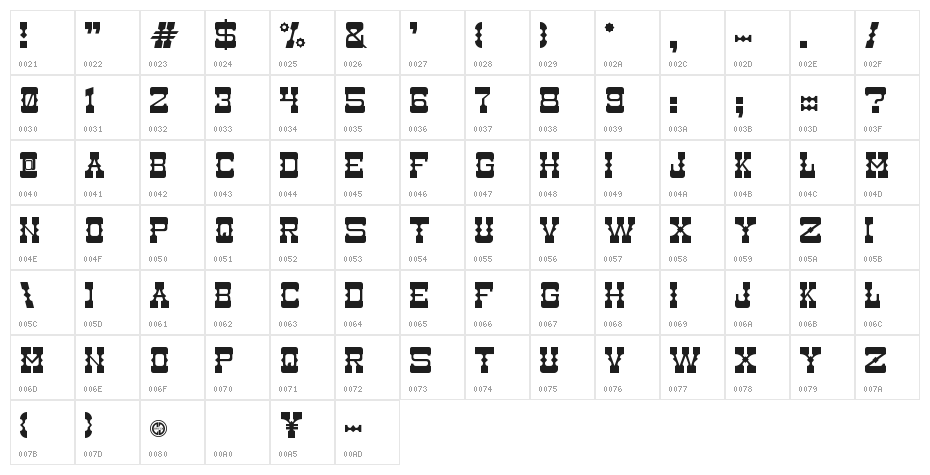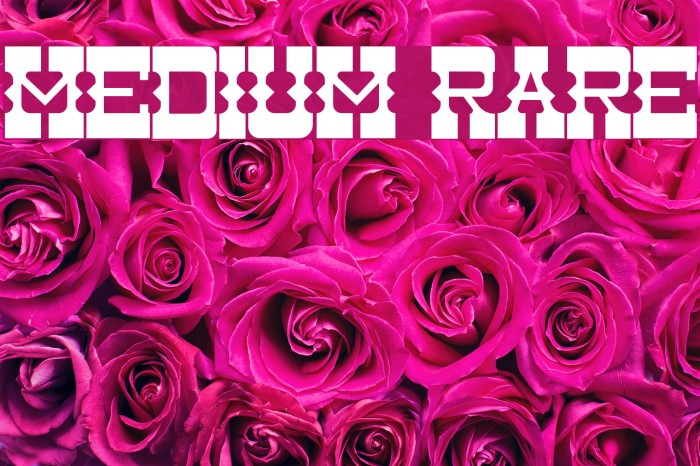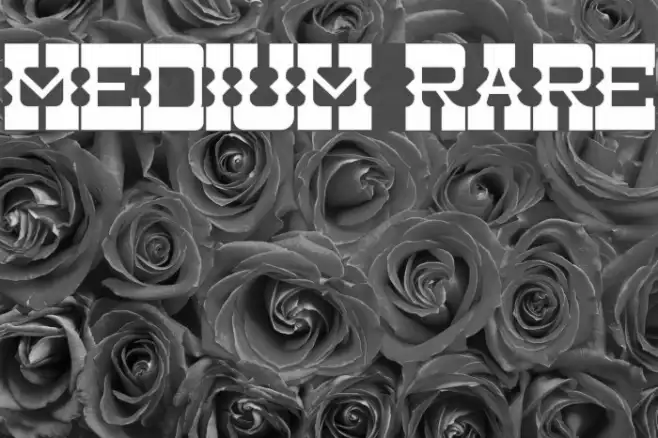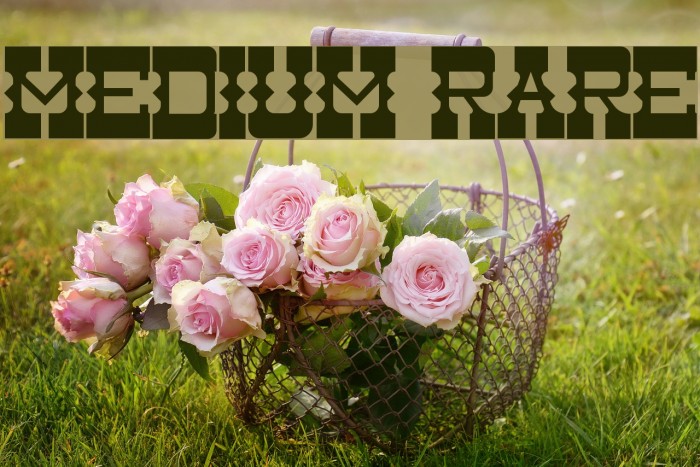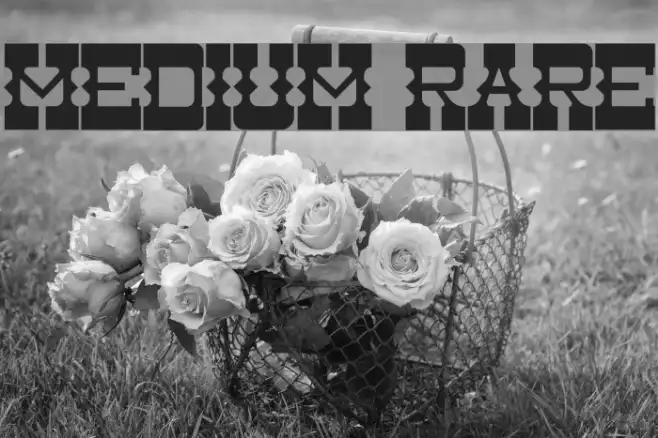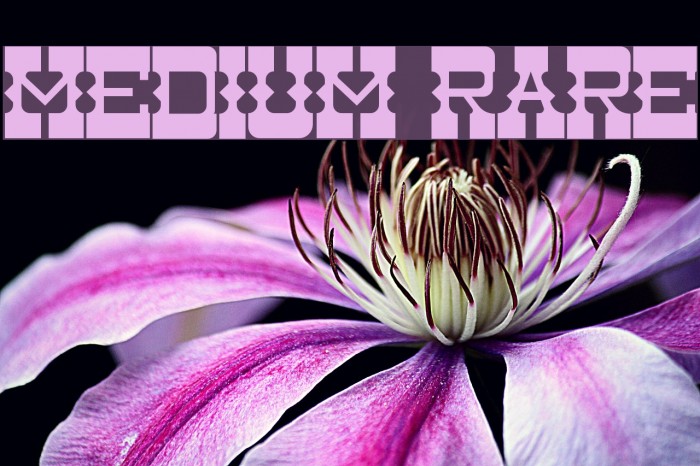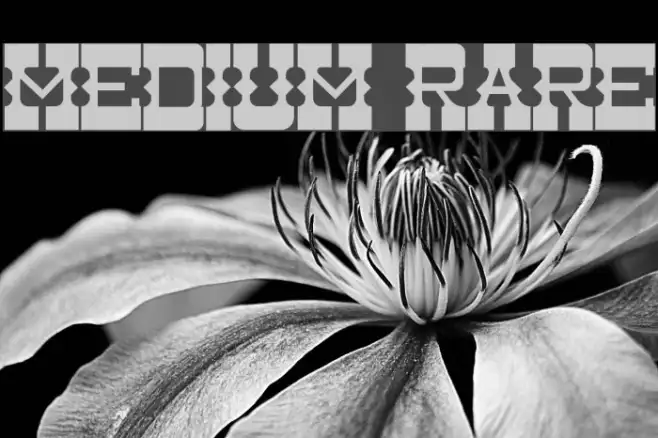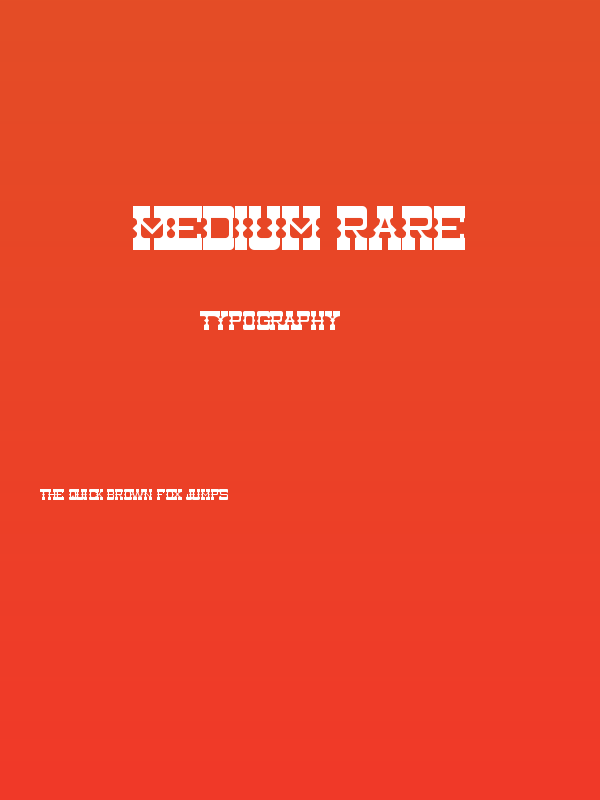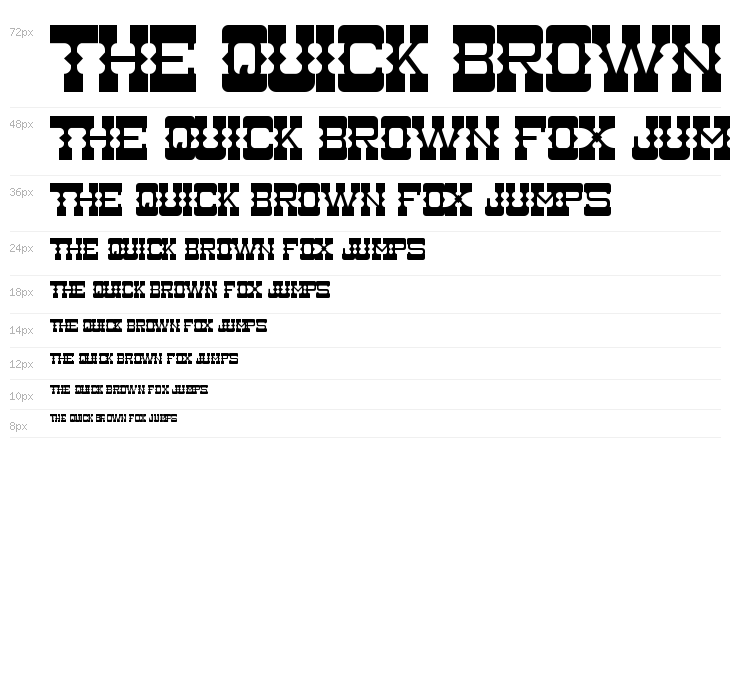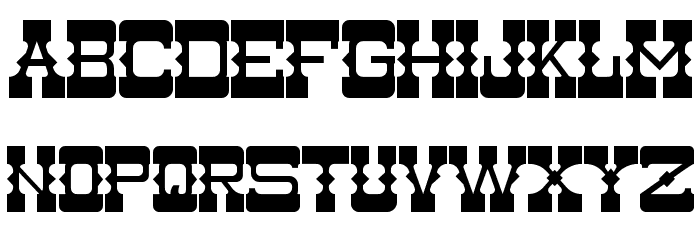
Medium Rare Font
Medium Rare Description
This font features a bold and striking design with a unique geometric style. Each character is crafted with a combination of solid blocks and circular cutouts, creating a visually intriguing pattern. The uppercase and lowercase letters maintain a consistent width, giving the font a uniform appearance. The numbers and special characters follow the same design principles, ensuring a cohesive look across all glyphs. This font's distinct style makes it ideal for projects that require a strong visual impact.
| Proposed Projects | Ideal for branding, poster design, album covers, and any project needing a bold, eye-catching typeface. |